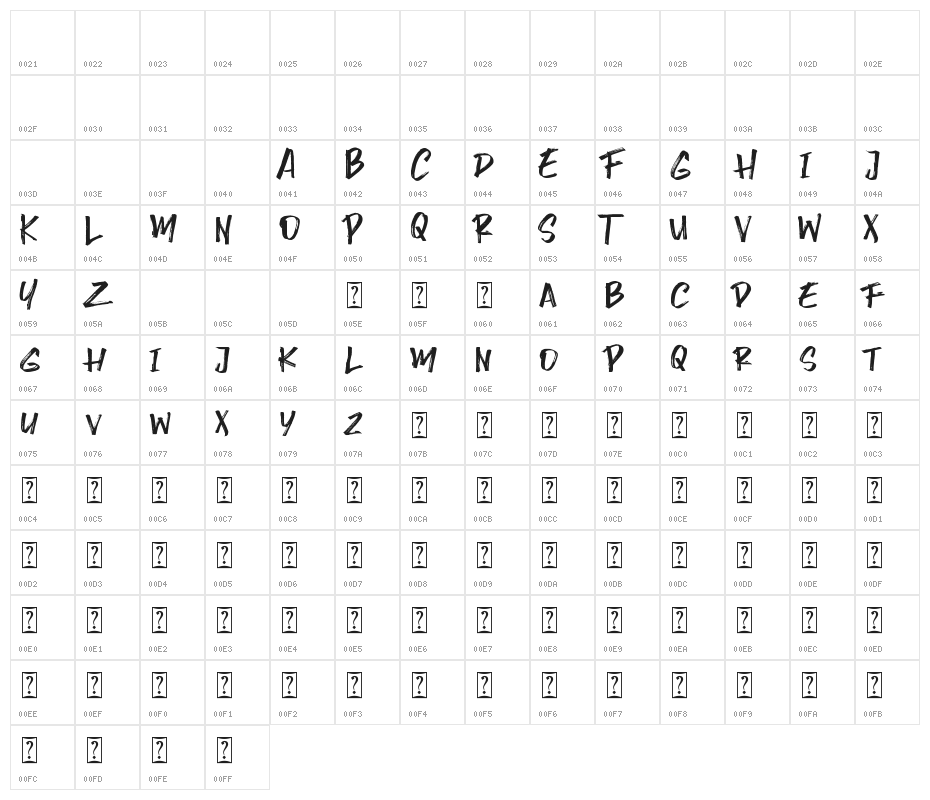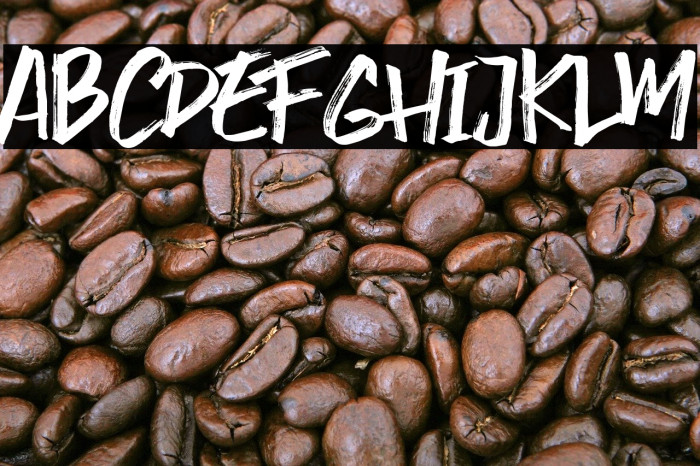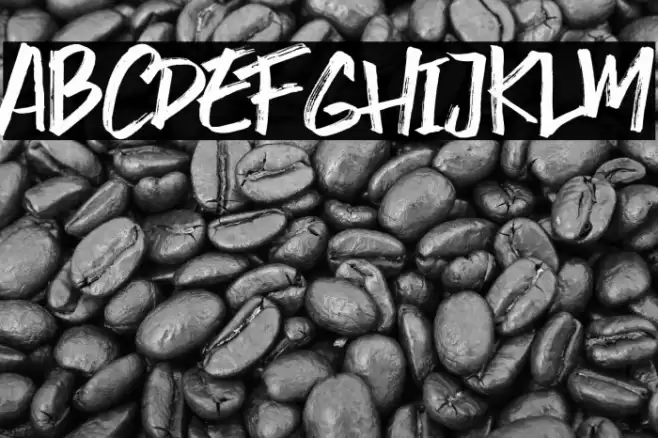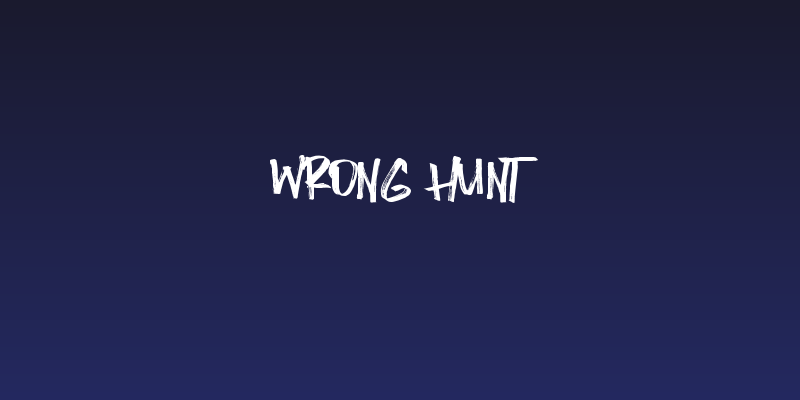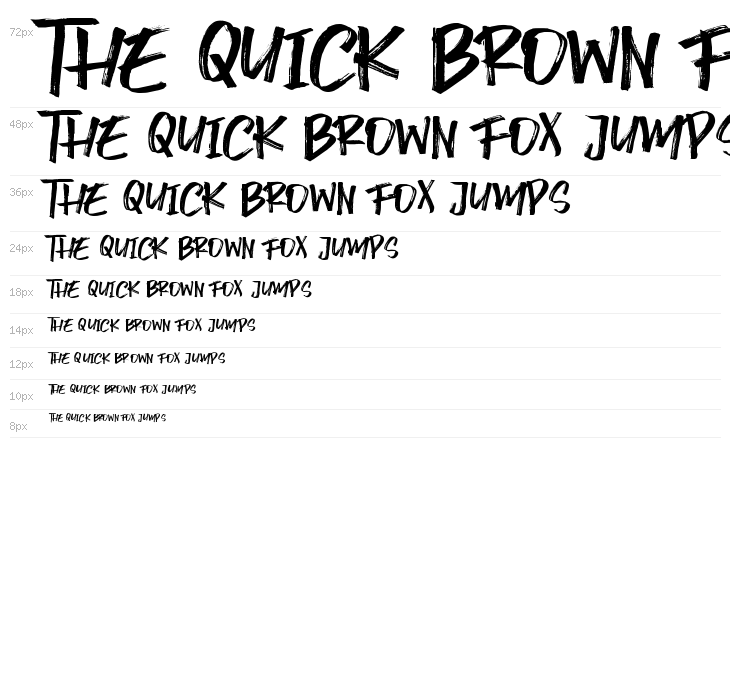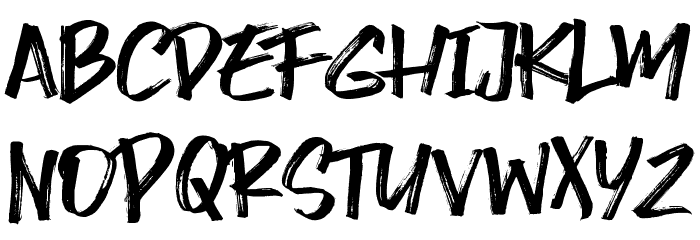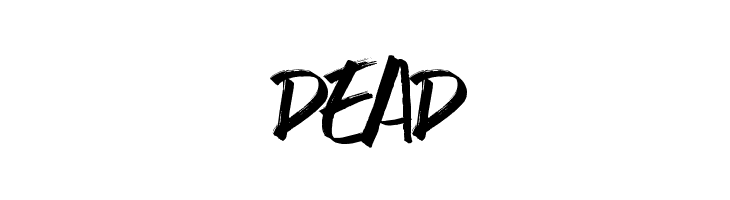
Wrong Hunt Font
This font exhibits a bold, dynamic brush style with a hand-painted appearance. The strokes are thick and energetic, giving each character a sense of movement and spontaneity. The letters have a rough, textured edge, adding to the raw and expressive feel. This style is reminiscent of street art or graffiti, making it ideal for projects that require a bold and artistic touch. The uppercase and lowercase letters maintain a consistent style, with a slightly irregular baseline that enhances the casual and informal look. The font's unique character is perfect for creating eye-catching headlines or artistic designs.
| Proposed Projects | Ideal for street art-inspired designs, bold posters, artistic branding, and eye-catching headlines. |